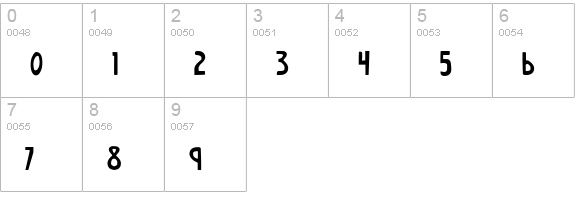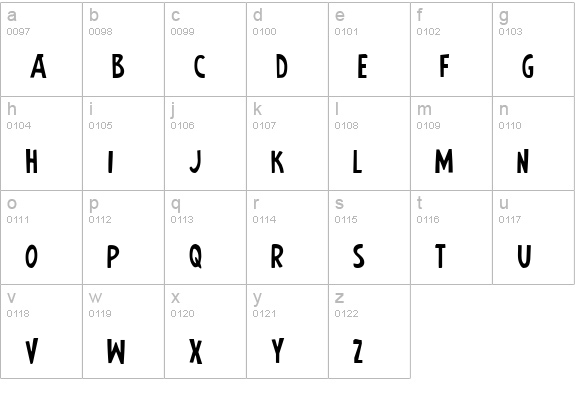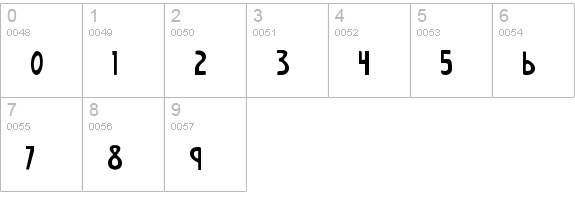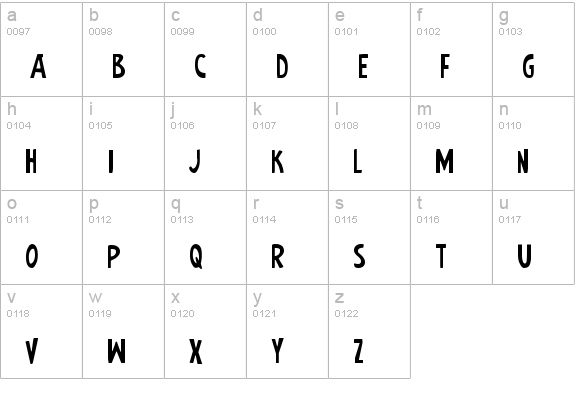
Earth's Mightiest Jumbled Font Details
Introducing Earth's Mightiest Jumbled font, a stunning typographical creation that exudes power, energy, and a thrilling sense of chaos. This font is designed for those who dare to stand out and make a statement with their visual communication. With its unique blend of bold, jagged lines and intricate details, Earth's Mightiest Jumbled captures the essence of a world in constant motion. This font is a perfect choice for any project that requires a touch of excitement and dynamism. Whether you're designing eye-catching posters, creating captivating social media graphics, or crafting impactful logos, Earth's Mightiest Jumbled will elevate your work to a whole new level. And the best part? Earth's Mightiest Jumbled font is freely available to download at FontsMarket.com. Yes, you read that right – this incredible font can be yours at no cost! FontsMarket.com is your one-stop destination for high-quality fonts that won't break the bank. We believe that creativity should be accessible to all, and that includes having access to exceptional fonts without any financial burden. So go ahead and unleash the power of Earth's Mightiest Jumbled font in your designs. Let its captivating energy and unique character breathe life into your projects. Download this remarkable font today at FontsMarket.com and embark on a journey to create visually stunning masterpieces that will leave a lasting impression. Remember, creativity knows no bounds when you have Earth's Mightiest Jumbled font by your side.